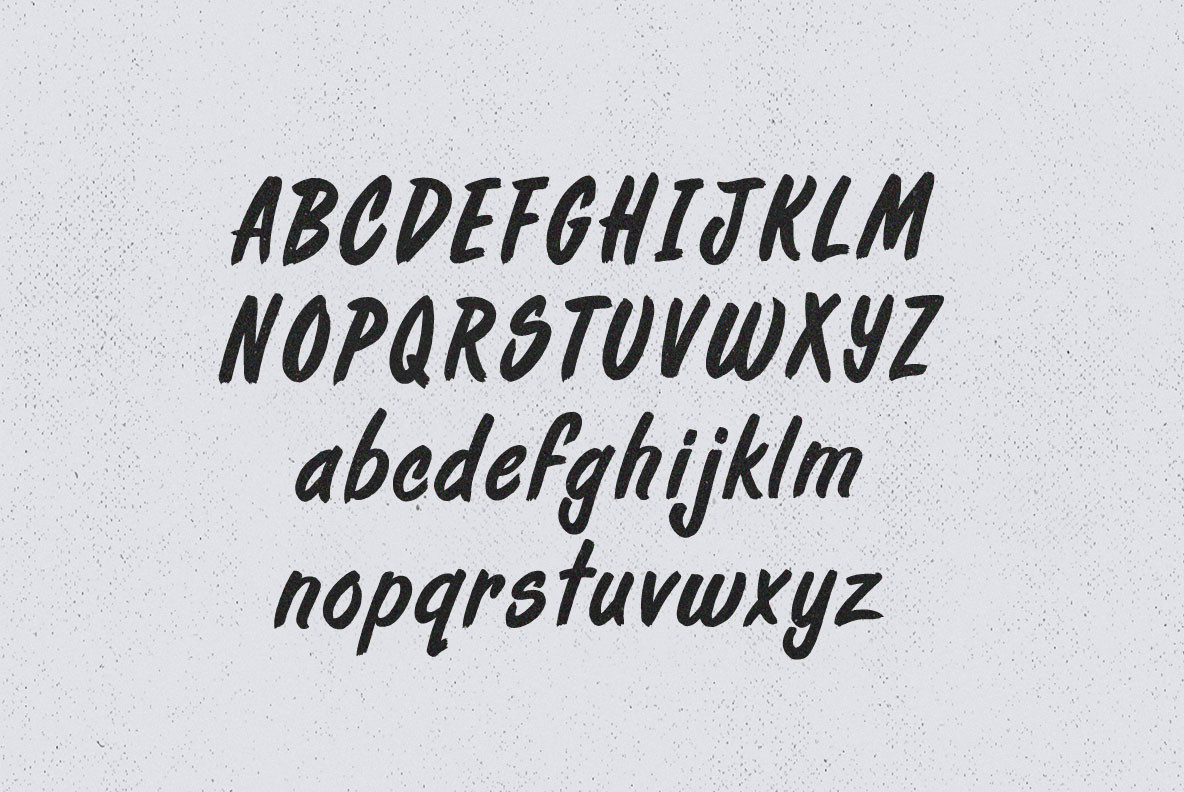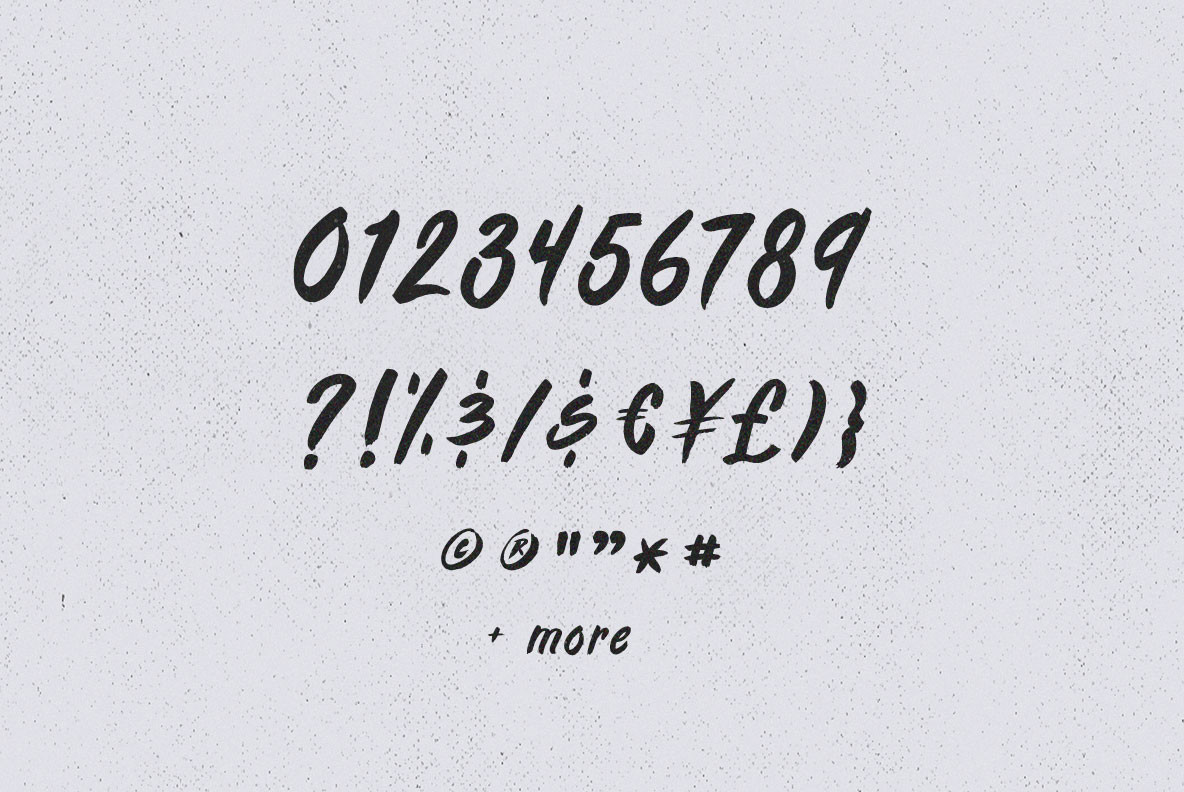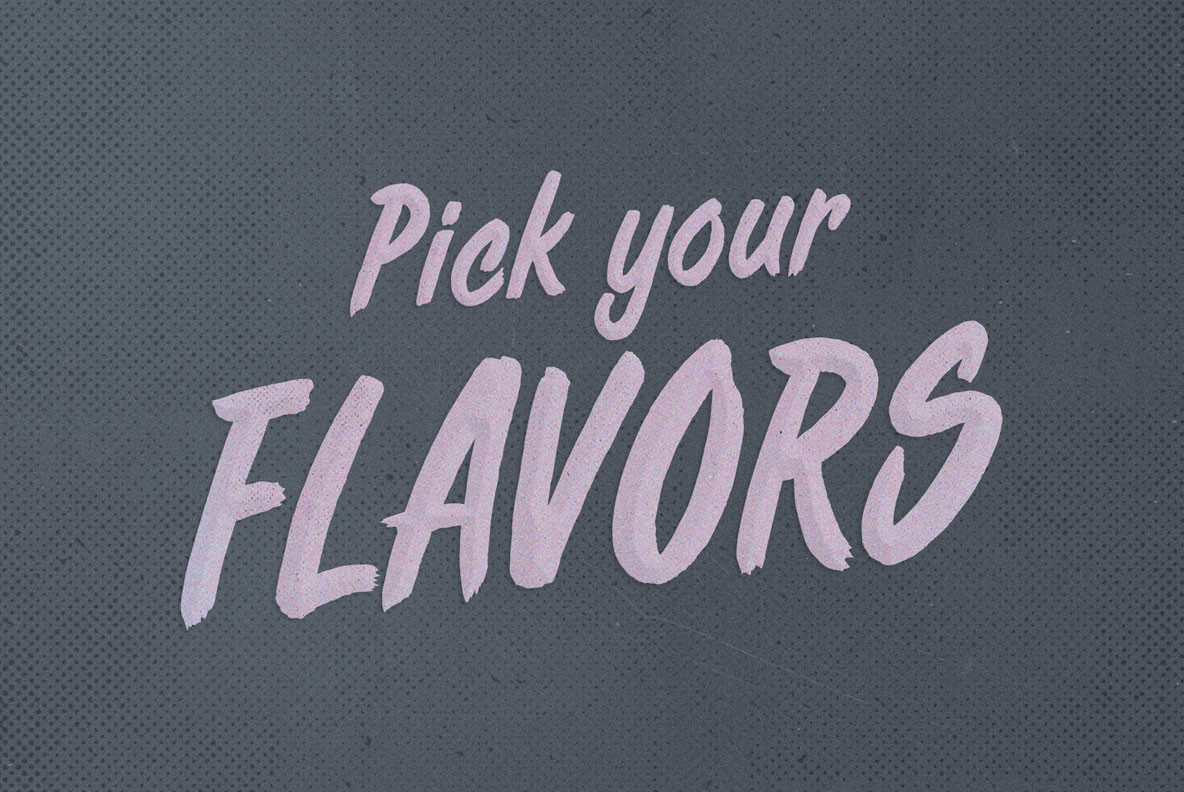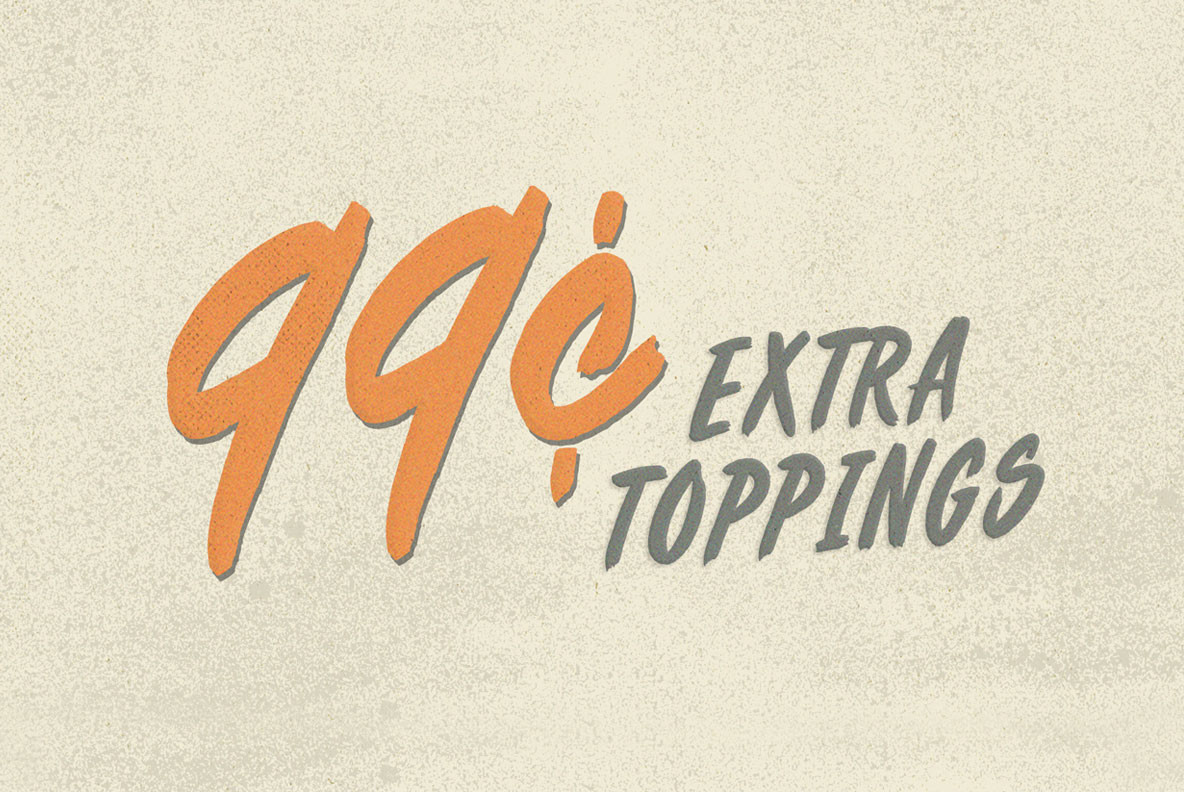
Fresh Daily Font
Fresh Daily
Order up! Right out of the oven: A bold taste with big flavor! Here for your enjoyment, it's the finest type served Fresh Daily. Made to order and only from BLKBK!
BLKBK, a type foundry established with a unique vision, specializes in crafting fonts that communicate more than just letters. Each BLKBK typeface is a testament to the art of meaningful lettering, drawing inspiration from an eclectic mix of hand-painted signs, the rhythmic beats of hip-hop, the vibrant art of...